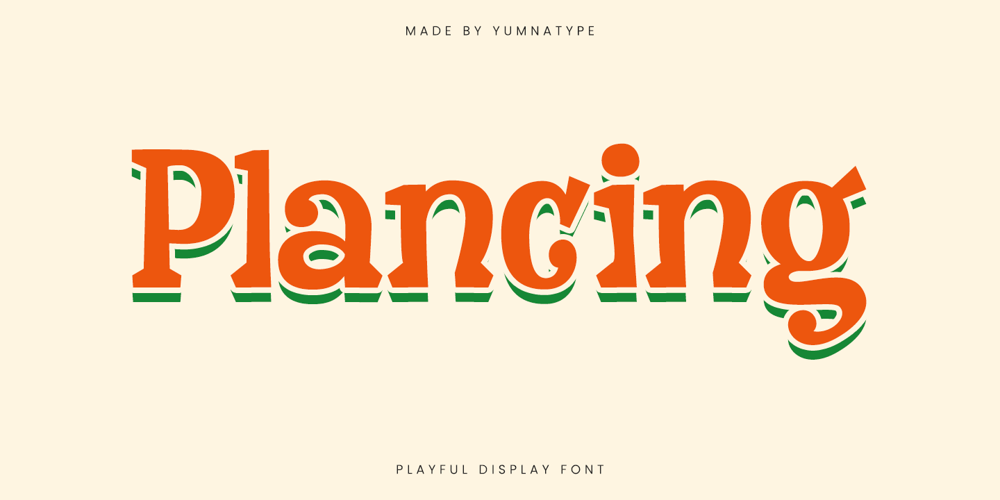
Plancing Font Family was designed by Donis Miftahudin and published by Yumna Type. Plancing contains 1 styles and family package options. Plancing is a captivating display font that embodies a playful style, designed to add a touch of whimsy to your projects. The font design shapes tend to be rounded, giving it a friendly and approachable feel, while some rather sharp corners add an unexpected twist, injecting a bit of edge and uniqueness into the design.With a weight that is not too thick, Plancing maintains an airy and light appearance. The low contrast between the strokes ensures a smooth and harmonious look, enhancing readability while preserving its playful character. In addition, enjoy the features here.Features: Ligatures Multilingual Supports PUA Encoded Numerals and Punctuations Plancing fits in headlines, logos, posters, flyers, branding materials, print media, editorial layouts, and many more designs. Find out more ways to use this font by taking a look at the font preview.Thanks for purchasing our fonts. Hopefully, you have a great time using our font. Feel free to contact us anytime for further information or when you have trouble with the font. Thanks a lot and happy designing.